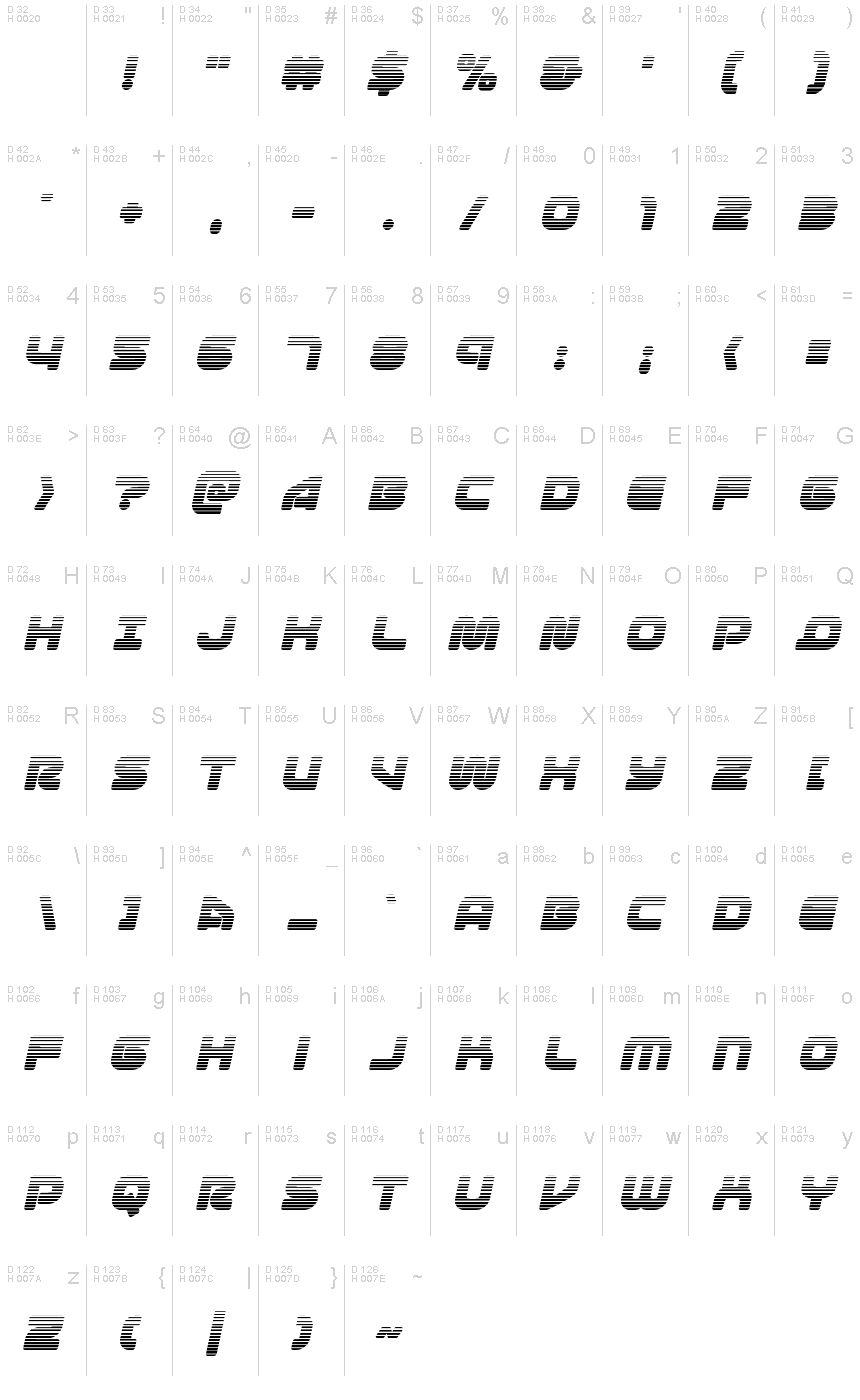
1st Enterprises Gradient Ital
1st Enterprises Gradient Italic is a bold and futuristic display font from the renowned designer, Iconian Fonts. With its expanded width and eye-catching gradient effect, this font is perfect for projects that demand attention and innovation. Use it to create striking logos, futuristic posters, or even video game titles. Its unique style adds a touch of modernity to any design, making it suitable for tech startups, fashion brands pushing boundaries, or even creative agencies looking to stand out. Let 1st Enterprises Gradient Italic be your go-to font for all things cutting-edge and captivating.